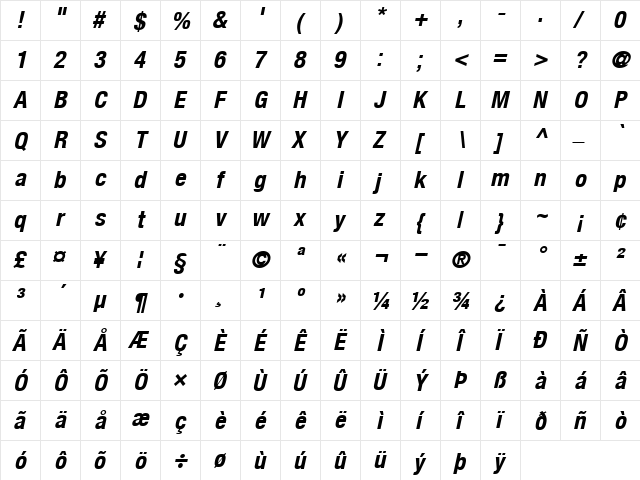
HelveticaNeueCond BoldItalic Font Preview
Design Context for HelveticaNeueCond Typeface
HelveticaNeueCond takes a measured approach to typography — its balanced proportions and neutral character make it a reliable workhorse for both digital and print work. Its italic angle brings a sense of urgency and motion to the letterforms. The heavy weight commands attention and anchors typographic hierarchies. Its narrow stance lets it pack a punch even in space-constrained designs.
Pro Tip: Use HelveticaNeueCond for emphasis, pull quotes, and subheadings where its slanted energy can add rhythm to the layout.